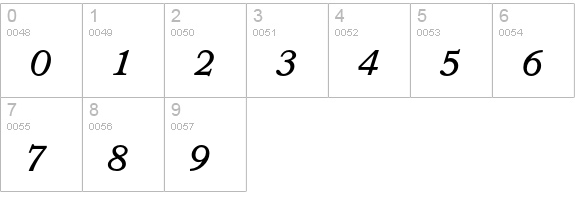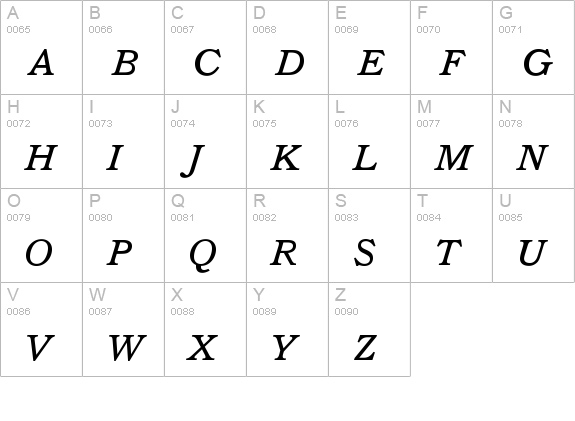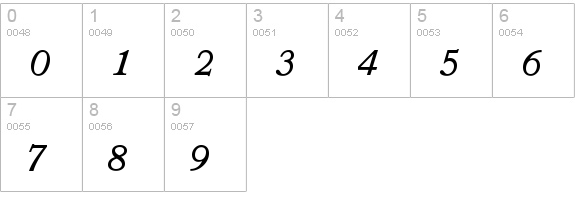
Bookman Italic Font Details
Bookman Italic is a distinctive, italic variant in the Bookman typeface family \xE2\x80\x94 well suited to design and typography projects.
Bookman Italic is a classic and elegant typeface that exudes sophistication and refinement. With its gracefully slanted letterforms and subtle calligraphic touch, Bookman Italic adds a touch of elegance to any design project. Its timeless style makes it a versatile choice for a wide range of applications, from formal invitations to editorial layouts. What sets Bookman Italic apart is its seamless blend of tradition and modernity, making it a truly timeless font choice. Its subtle curves and delicate strokes create a sense of fluidity and grace, while its strong, confident presence commands attention on the page. Best of all, Bookman Italic is available for free download at FontsMarket.com, making it accessible to designers and creatives who are looking to add a touch of sophistication to their work without breaking the bank. Whether you're designing a wedding invitation, crafting a magazine layout, or creating a logo for a luxury brand, Bookman Italic is sure to elevate your design with its timeless beauty and understated elegance.